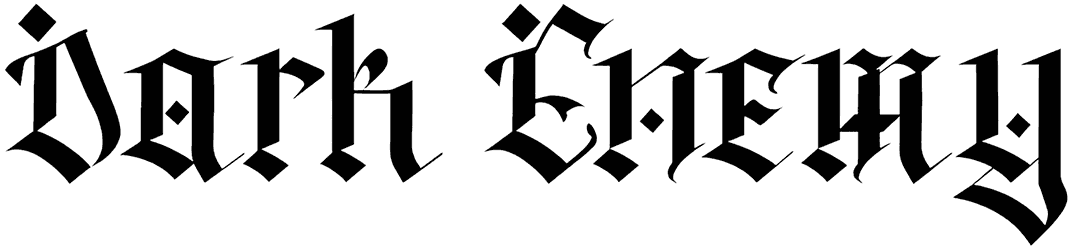
Dark Enemy Font
Today, we want to introduce you, Dark Enemy, a black letter font that comes with a full set of characters. It also conveys a vintage and classic feel, bringing medieval history into your mind. You can use it to represent your design cool and professional way. It will be great for tattoos, apparel printing, wine labels, movie posters, and advertising.